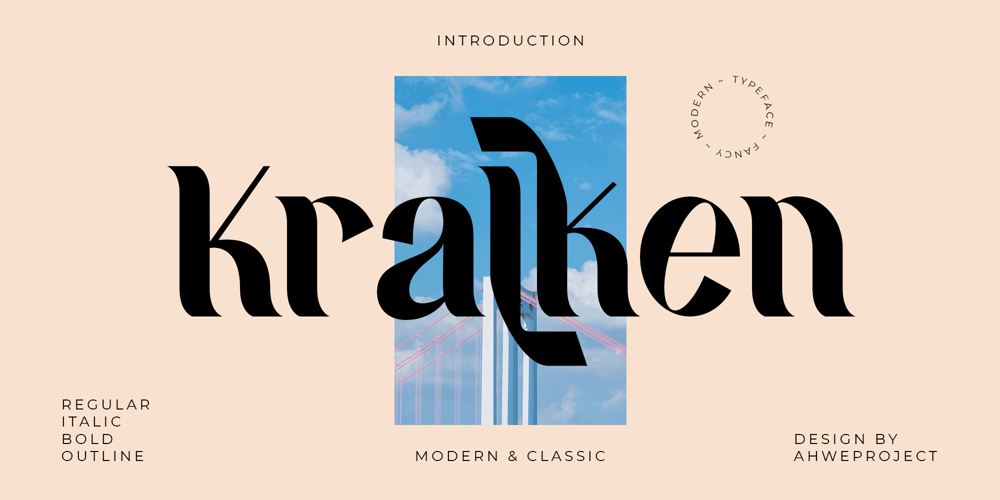
Kralken
Kralken font
Kralken Font Family was designed by Dida Ahluddin and published by ahweproject. Kralken contains 4 styles and family package options. Kralken is a cool, modern and detailed serif font. It will add a luxury spark to any design project that you wish to create! This font is PUA encoded which means you can access all of the amazing glyphs and ligatures with ease!